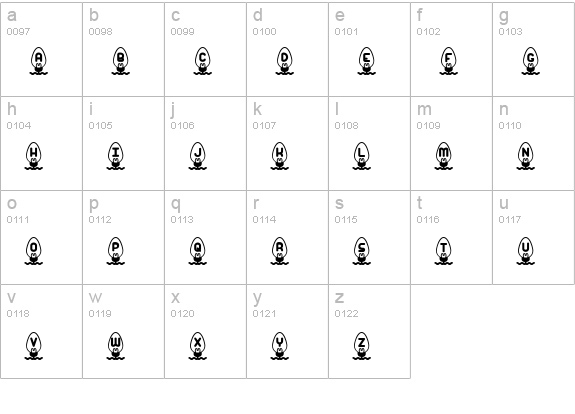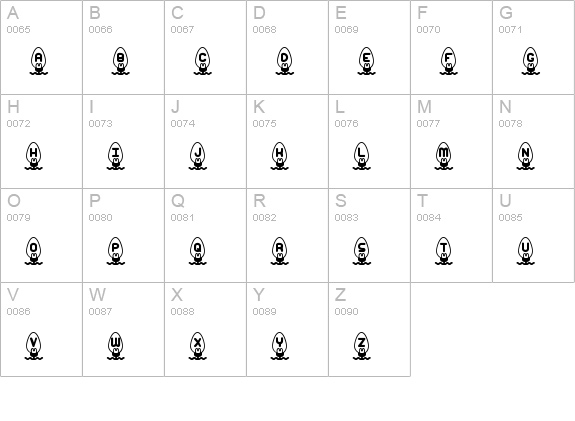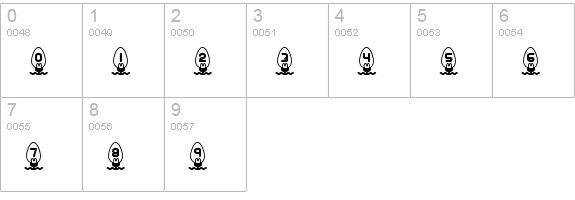
Xmas Lights -BRK- Font Details
Introducing Xmas Lights -BRK- font, a whimsically festive typeface that will illuminate your holiday designs with its captivating charm. This delightful font captures the enchanting glow of Christmas lights, bringing a touch of magic to your projects. With its playful and intricate letter forms, Xmas Lights -BRK- font is perfect for adding a spirited and joyful vibe to your holiday cards, party invitations, gift tags, and more. Its unique design features beautifully intertwined strands of lights, creating a visually stunning display that will instantly transport your audience into a winter wonderland. But what makes Xmas Lights -BRK- font even more special is that it is freely available to download at FontsMarket.com. Yes, you read that right! You can bring the festive allure of this font to your designs without spending a single penny. It's the perfect gift for designers, artists, and anyone who wants to add a touch of holiday magic to their creations. Designed with versatility in mind, Xmas Lights -BRK- font can be used in a variety of applications. Whether you're designing holiday-themed banners, website headers, or even creating custom merchandise, this font will effortlessly infuse your designs with the spirit of the season. So, why wait? Download Xmas Lights -BRK- font today from FontsMarket.com and let the holiday spirit shine through your designs. Spread joy, warmth, and cheer with this enchanting font that is sure to make your projects stand out. The magic of Christmas is just a click away, and it's all yours, for free.